Every stitch tells a story of hands at work, memories preserved, and names turned into keepsakes that outlast trends. That is where the right embroidery font transforms simple thread into personality and emotion.
Discover Magazine notes that fonts strongly influence the cognitive processes involved while we read by shaping attention, clarity, and our emotional response. Curious which fonts match? Read on!
If you are aiming for timeless elegance or modern playfulness, here is a collection of 28 embroidery font types to help you craft the perfect personalized narrative.
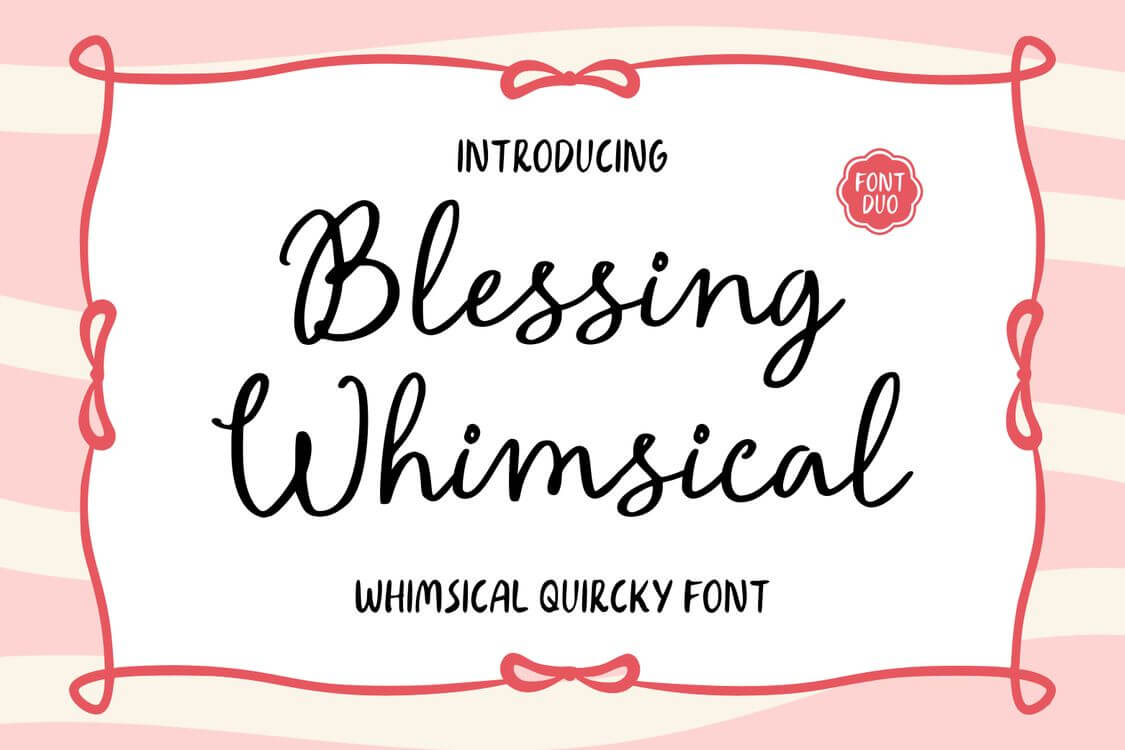
A playful handwritten script with soft curves, perfect for nursery names, handmade labels, and cheerful gifts.
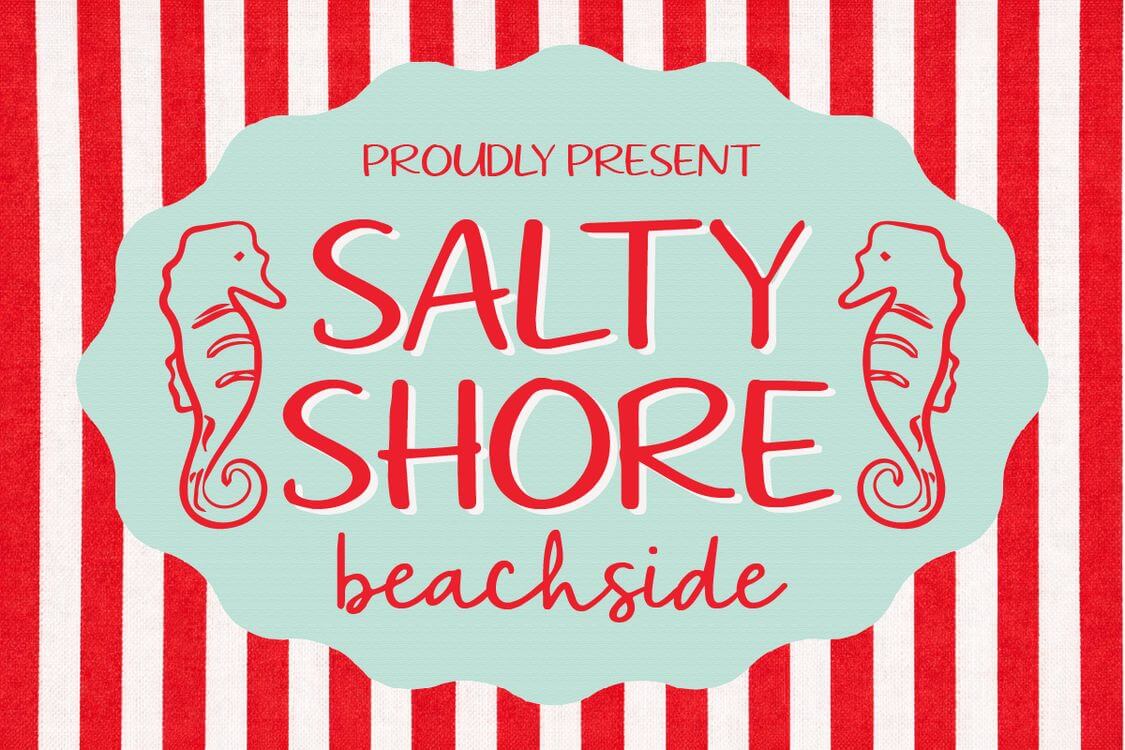
Breezy and relaxed, this embroidery font works beautifully on summer bags, beach towels, and coastal décor.
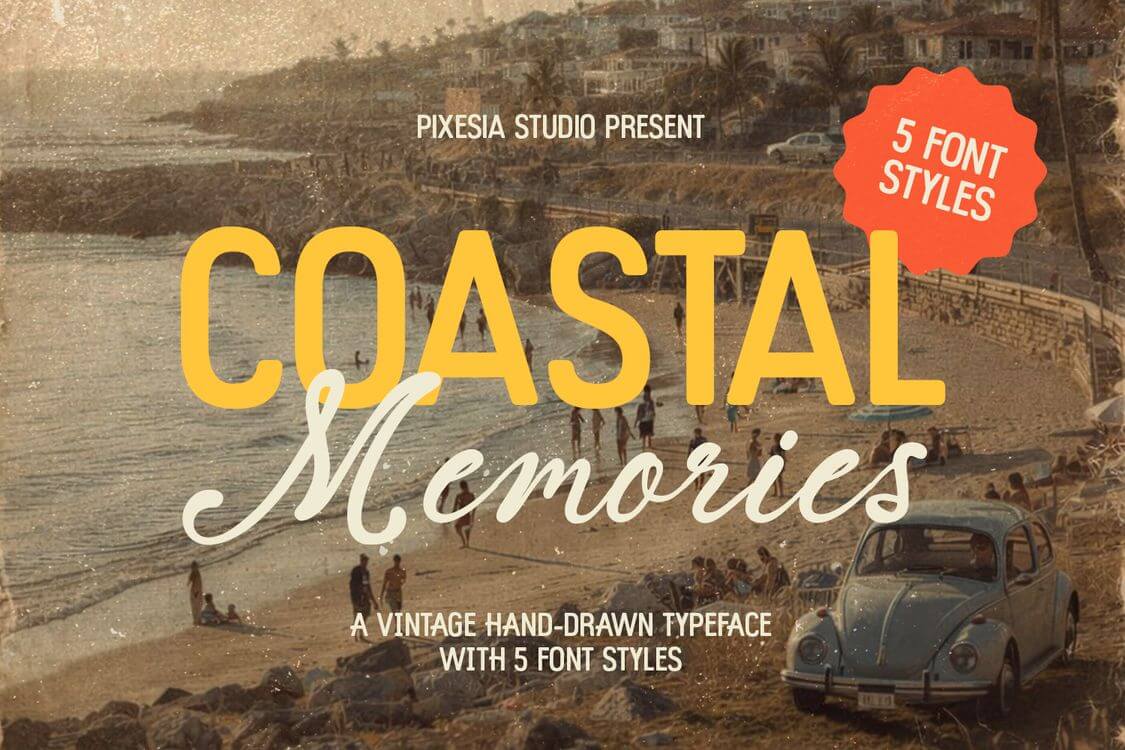
Elegant yet casual, especially for wedding keepsakes, memory quilts, and travel-inspired embroidery.
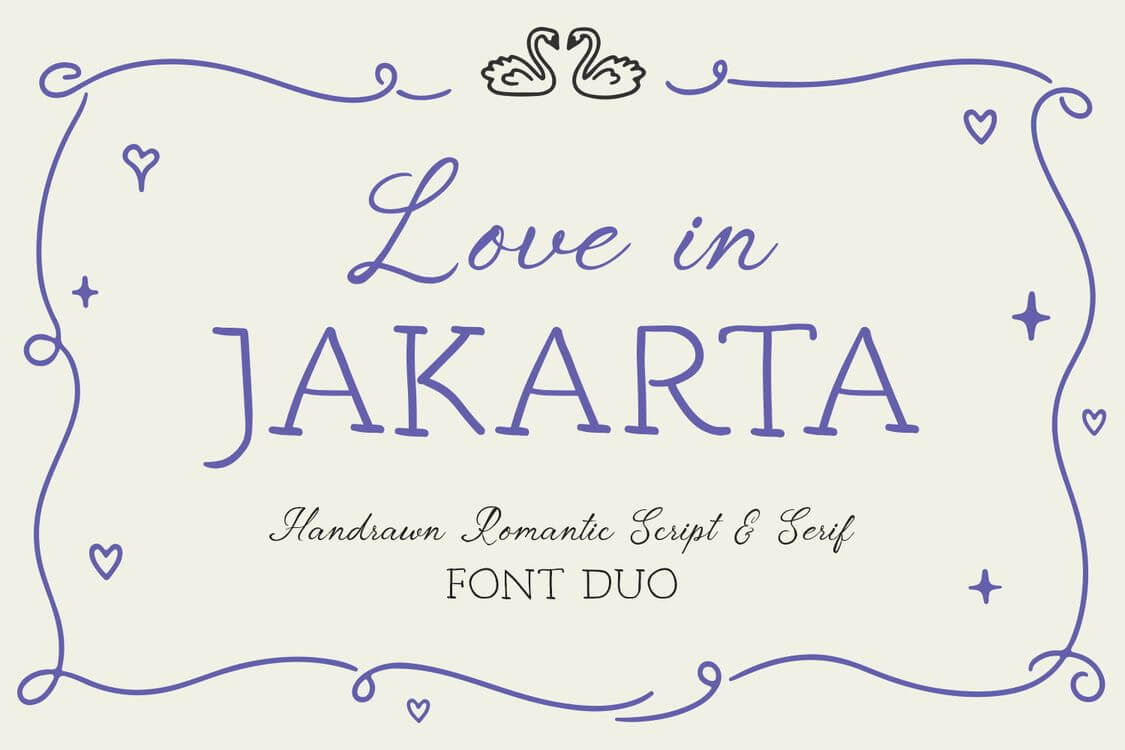
Romantic with urban nuances, great for couple gifts, anniversary pillows, or stylish apparel text.
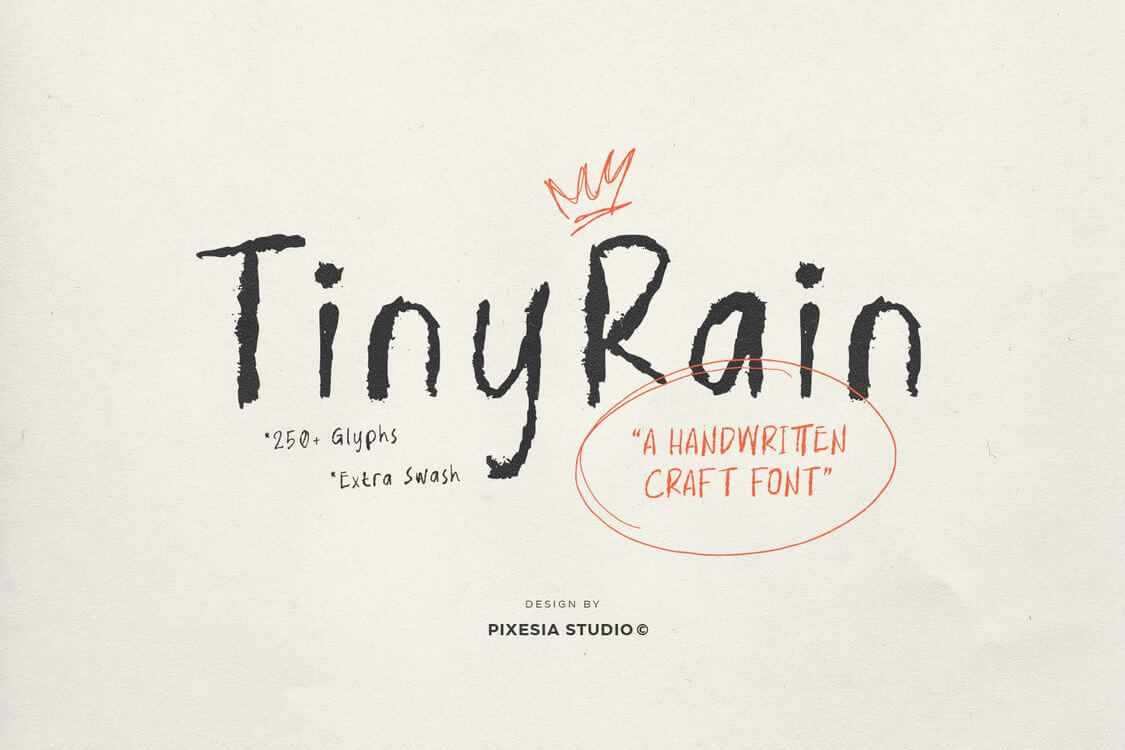
Delicate and light, suited for baby blankets, feminine accessories, and subtle initials.
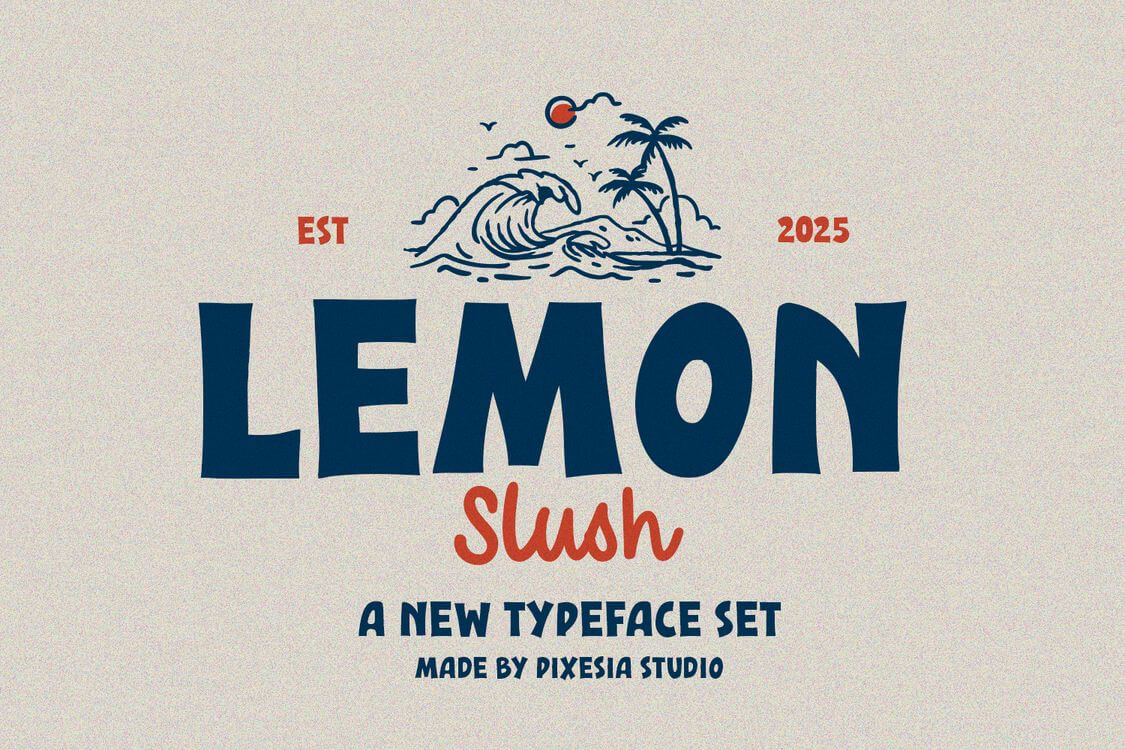
Bright and energetic with youthful charm, perfect for kidswear, aprons, and playful projects.
Graceful and decorative for boutique branding, personalized scarves, and elegant gift packaging.
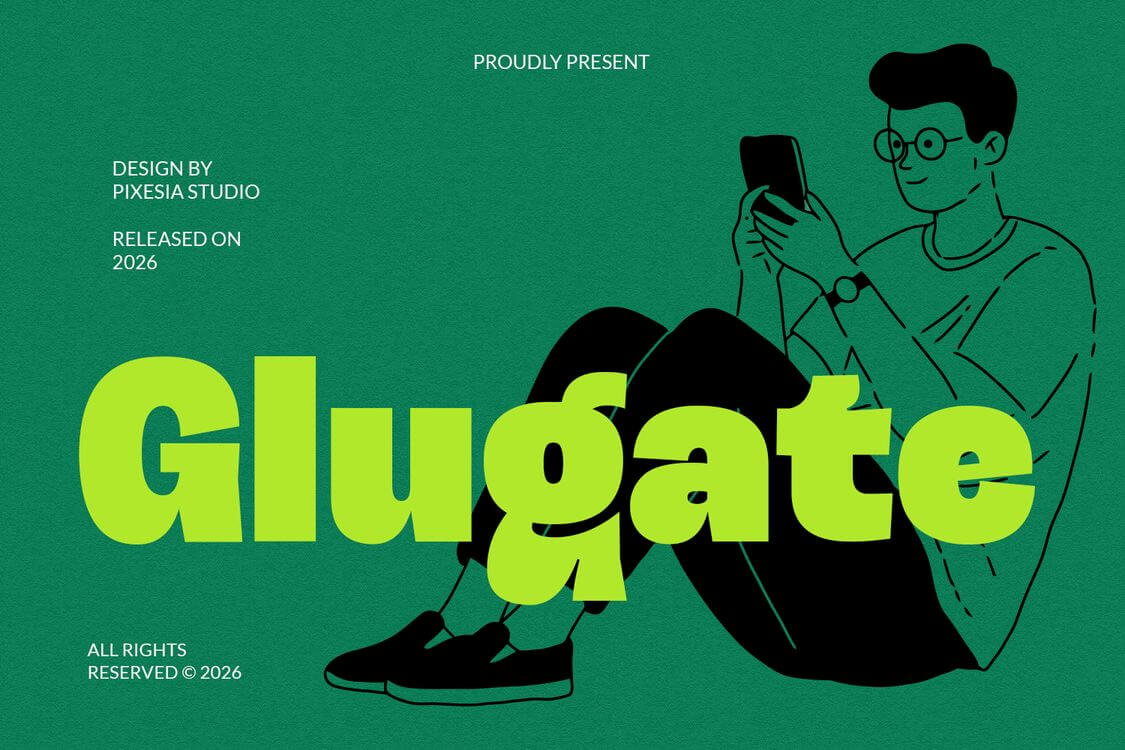
Heavy and modern with confidence, this embroidery font is excellent for sportswear, jackets, and bold branding.
Futuristic and structured, well-suited for tech-themed merchandise or standout chest logos.
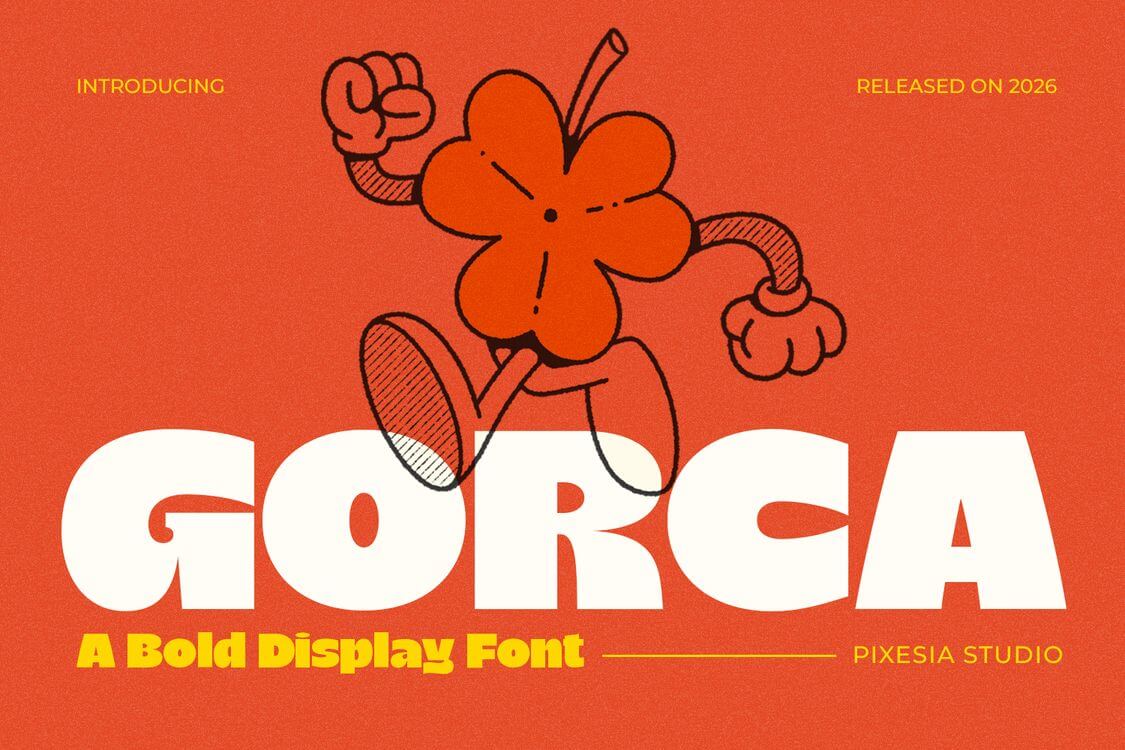
Wide and commanding, great for tote bags, uniforms, and visible signage text.
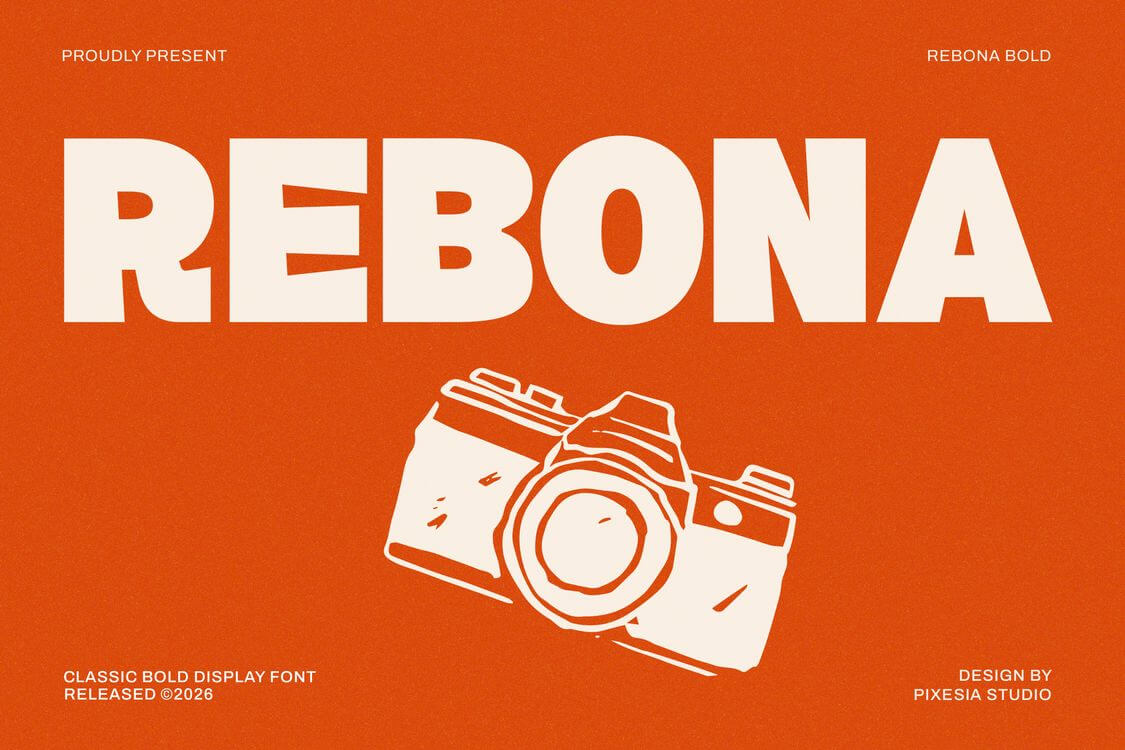
Rounded boldness gives it a friendly feel, perfect for children’s products and fun merchandise.
Puffy and cheerful, best for party décor, casual apparel, and youthful designs.
This retro embroidery font has stylish thickness with personality, suited for trendy streetwear and custom hats.
Rugged and impactful, suited for workwear, masculine gifts, or outdoor-themed items.
Softly nostalgic and organized, a great choice for sampler art, bookmarks, and home décor.
This pixel-perfect embroidery font is perfect for gamer gifts, tech pouches, and novelty apparel.
Minimal and clean, excellent for modern towels, travel pouches, and subtle branding.
Crisp and architectural, great for labels, notebook covers, and sleek accessories.
Precise and contemporary, suited for minimalist logos and premium stitched details.
Calm and balanced, useful for meaningful quotes, modest branding, and organized layouts.
Geometric and fresh, a perfect choice for modern bags, caps, and startup merchandise.
Softly sentimental and elegant, perfect for journals, wedding linens, and heirloom gifts.
Romantic and fluid, ideal for couples’ robes, Valentine gifts, and anniversary keepsakes.
Refined with classic charm, this script embroidery font is suited for luxury napkins, invitations, and monograms.
Dramatic curves create sophistication, great for fashion labels and statement pieces.
Floral and graceful, perfect for spring décor, handbags, and feminine accessories.
Rich and upscale, ideal for premium packaging, boutique logos, and elegant garments.
Regal and polished, best for formal gifts, event décor, and timeless initials.
Choosing the right font for embroidery is a smart way to turn a simple thread into identity, emotion, and lasting detail. Beyond that, the best styles ensure stitch clarity and perfect spacing across any fabric texture. The secret to making a DIY project look like a polished masterpiece comes down to a smart font choice, no matter if it’s for a heartfelt gift or a professional brand.
To help you achieve that professional finish, explore Pixesia‘s embroidery font collection. Designed with clean curves and stitch-friendly outlines, our fonts are crafted to make your production smoother and your monograms or custom names look impeccably refined. Start creating with confidence!
Most embroidery fonts stitch clearly at medium sizes, while very small text may lose detail depending on the fabric and thread.
Yes, combining two fonts can create contrast, such as using script for names and bold fonts for headings.
High-contrast thread colors improve readability, especially on dark or textured fabrics.
No, results can vary based on fabric thickness, stretch, and texture, so testing first is recommended.